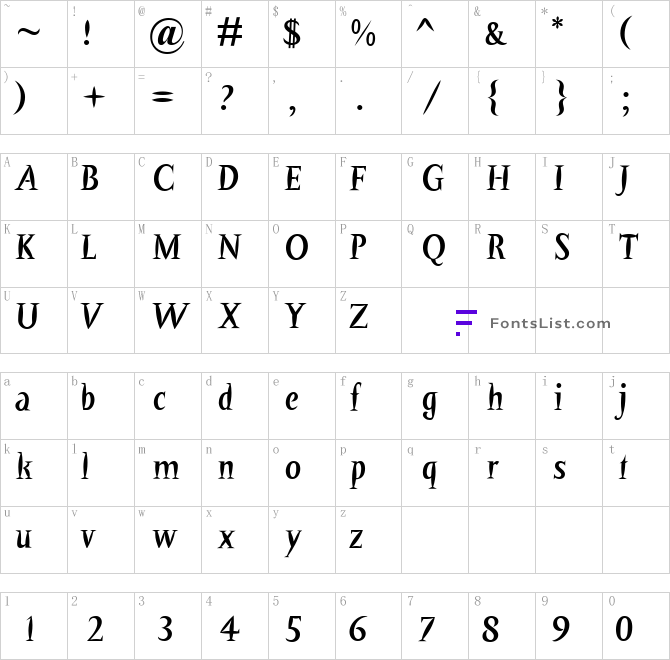
- Font Name:Barracuda Regular
Barracuda-Regular-PDF.ttf is a very beautiful artistic font, Barracuda-Regular-PDF.ttf is widely used in the design and printing of various books and pictures,Barracuda-Regular-PDF.ttf has a strong visual impact,Barracuda-Regular-PDF.ttf is a commonly used font in newspapers, magazines and books, and is used in posters, e-commerce Poster design, store design, logo design, font design and other fields.Barracuda-Regular-PDF.